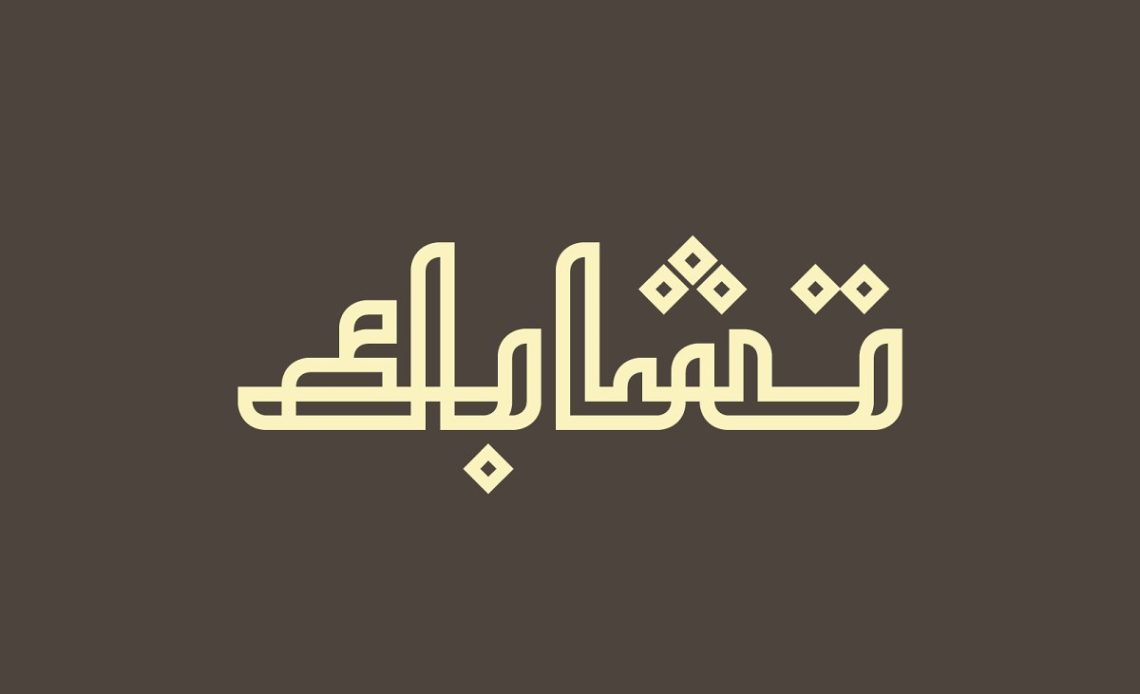
Introducing Tashabok - Arabic Font, a masterpiece created by the talented Mostafa Abasiry. Derived from the Arabic word for "overlapping or intertwinement," Tashabok beautifully captures the essence of this concept with its uniquely interwined hollow letterforms.
This captivating font belongs to the fonts family, making it a versatile choice for various design projects. Whether you're looking to elevate your creative titling, establish a strong brand identity, or craft eye-catching advertisements, Tashabok is the perfect companion.
What sets Tashabok apart from other fonts is its ability to evoke emotions through its intricate and mesmerizing design. Each letter is carefully crafted to create a sense of unity and harmony, allowing your messages to resonate deeply with your target audience.
Imagine the impact of Tashabok in web design, where it can effortlessly transform a mundane website into a visually stunning masterpiece. Its hollow letterforms add a touch of elegance and sophistication, attracting users and keeping them engaged with your content.
But Tashabok doesn't stop at digital platforms. This versatile font also excels in typographic compositions, adding an artistic flair to your print materials. Whether it's brochures, posters, or even book covers, Tashabok effortlessly brings your words to life, leaving a lasting impression on your audience.
With Tashabok, your designs will speak volumes, conveying emotions and capturing attention like never before. Its rich history and cultural significance make it a font that stands out from the crowd, giving your projects a unique and authentic touch.